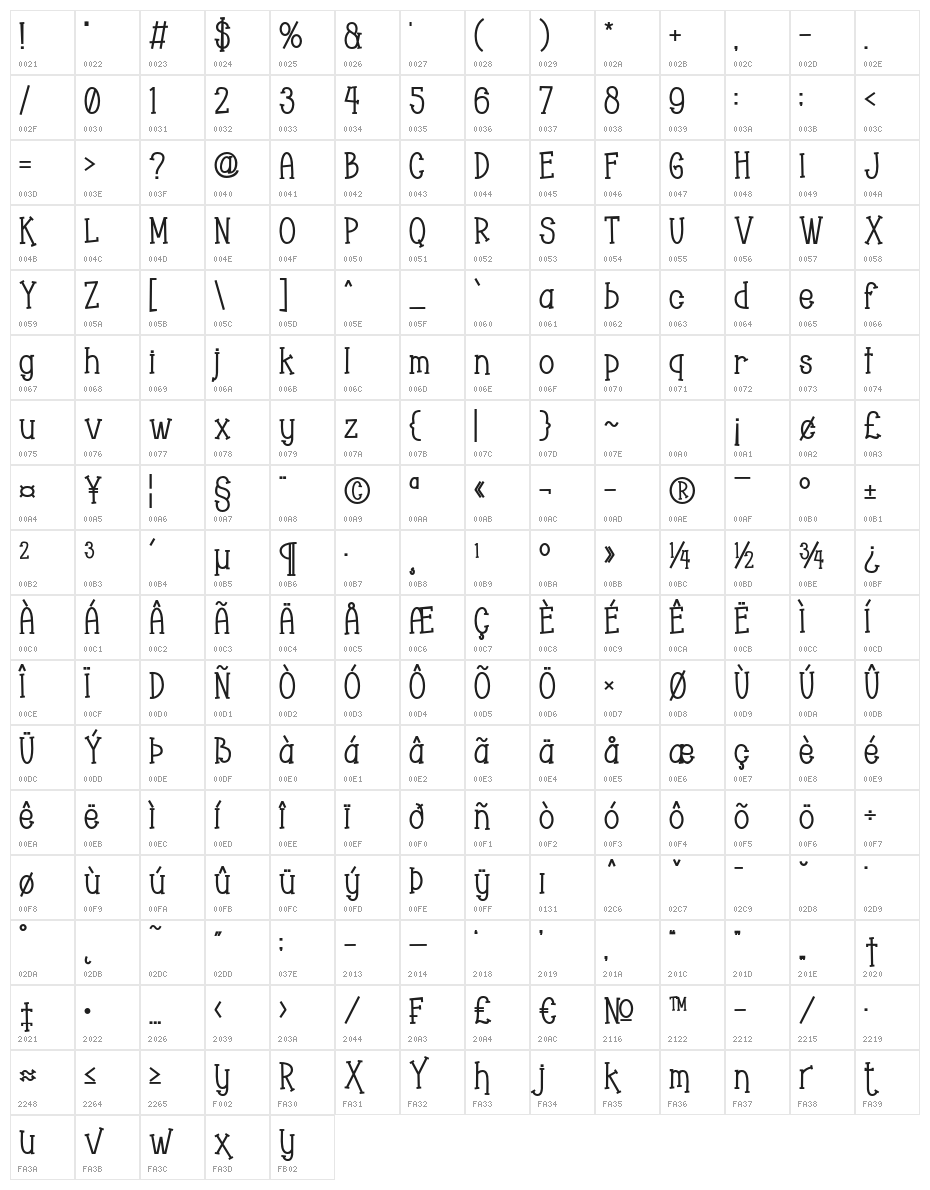
Chopyor Font
Chopyor Description
This font features a playful and quirky design with a hand-drawn aesthetic. The characters are slightly irregular, giving them a whimsical and informal appearance. The uppercase letters are tall and narrow, while the lowercase letters maintain a consistent height, creating a harmonious balance. The numbers and special characters follow the same playful style, making them suitable for creative projects. The strokes are moderately thick, providing good readability while maintaining the font's unique charm. This font is ideal for projects that require a fun and engaging look, such as children's books, posters, and casual branding.
| Proposed Projects | Children's books, posters, casual branding, creative invitations. |